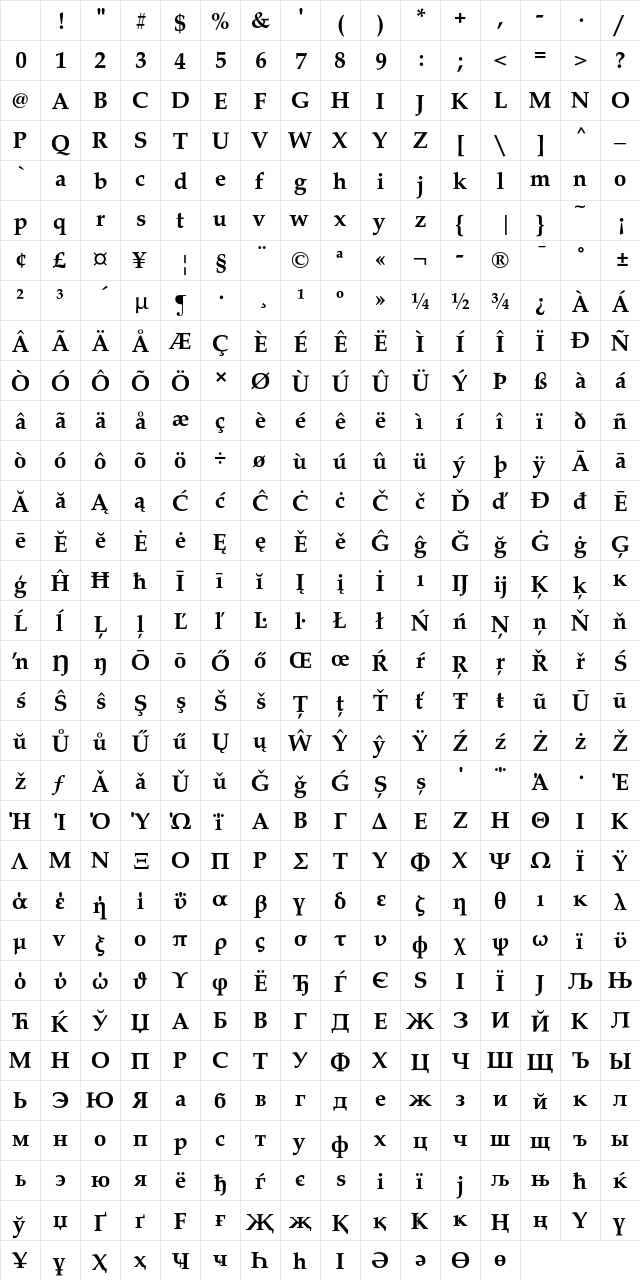
Complete Palladio URW Bold glyph index. Displaying only characters natively supported by Palladio URW Bold font.
Palladio URW is a composed and adaptable typeface that performs quietly and consistently across a wide range of design contexts. Its bold stroke weight gives it real presence on the page.